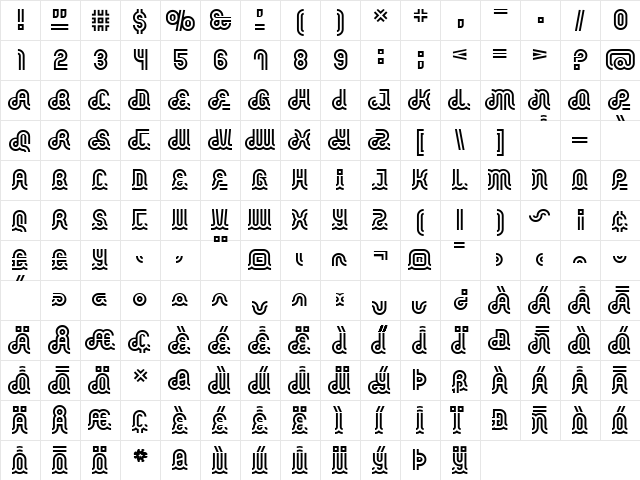
Phatburner Regular
Design Context for Phatburner Typeface
Phatburner is a composed and adaptable typeface that performs quietly and consistently across a wide range of design contexts.